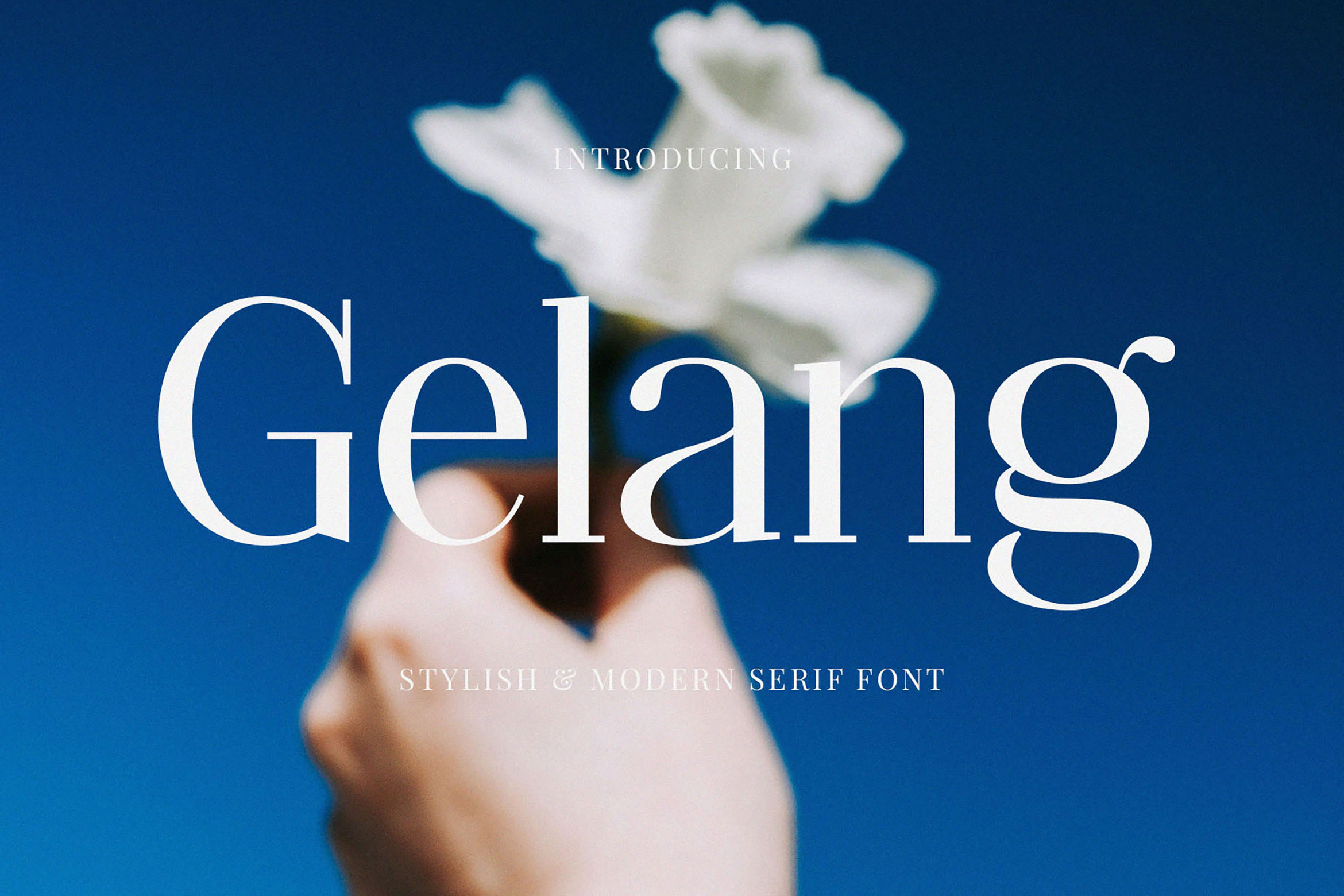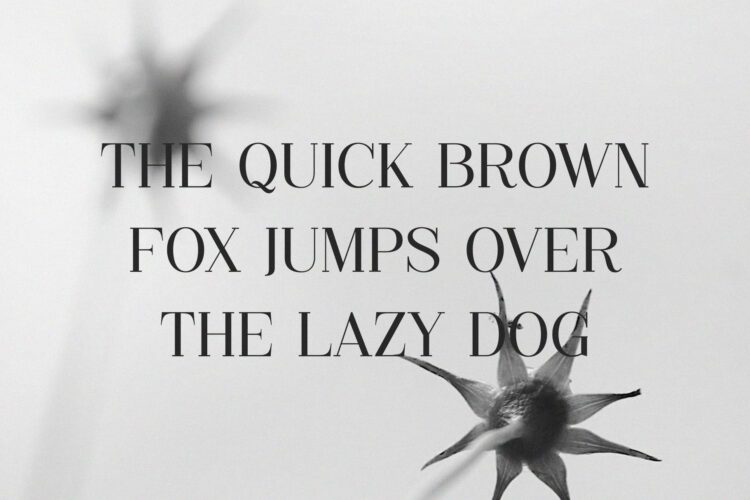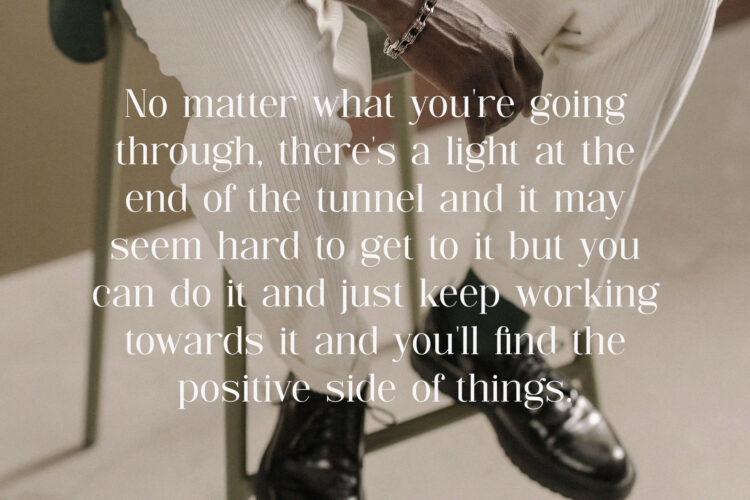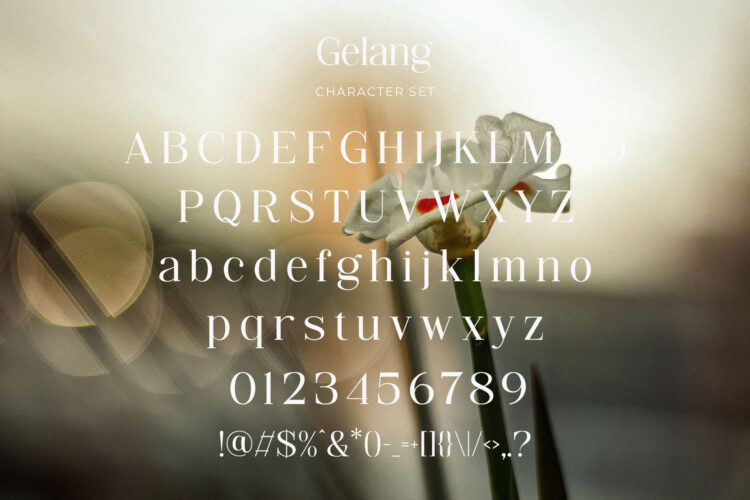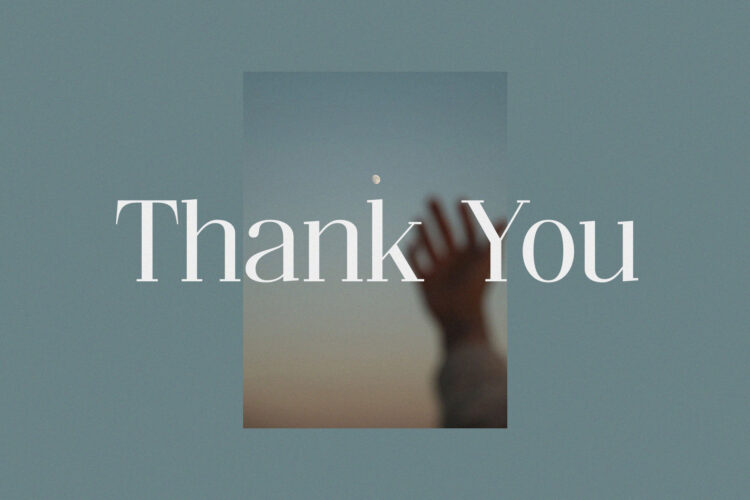
Introducing our new Gelang, modern serif font with elegant style this is perfect for branding, logos, invitation, magazines, product packaging and more.
Gelang – Stylish & Modern Serif Font